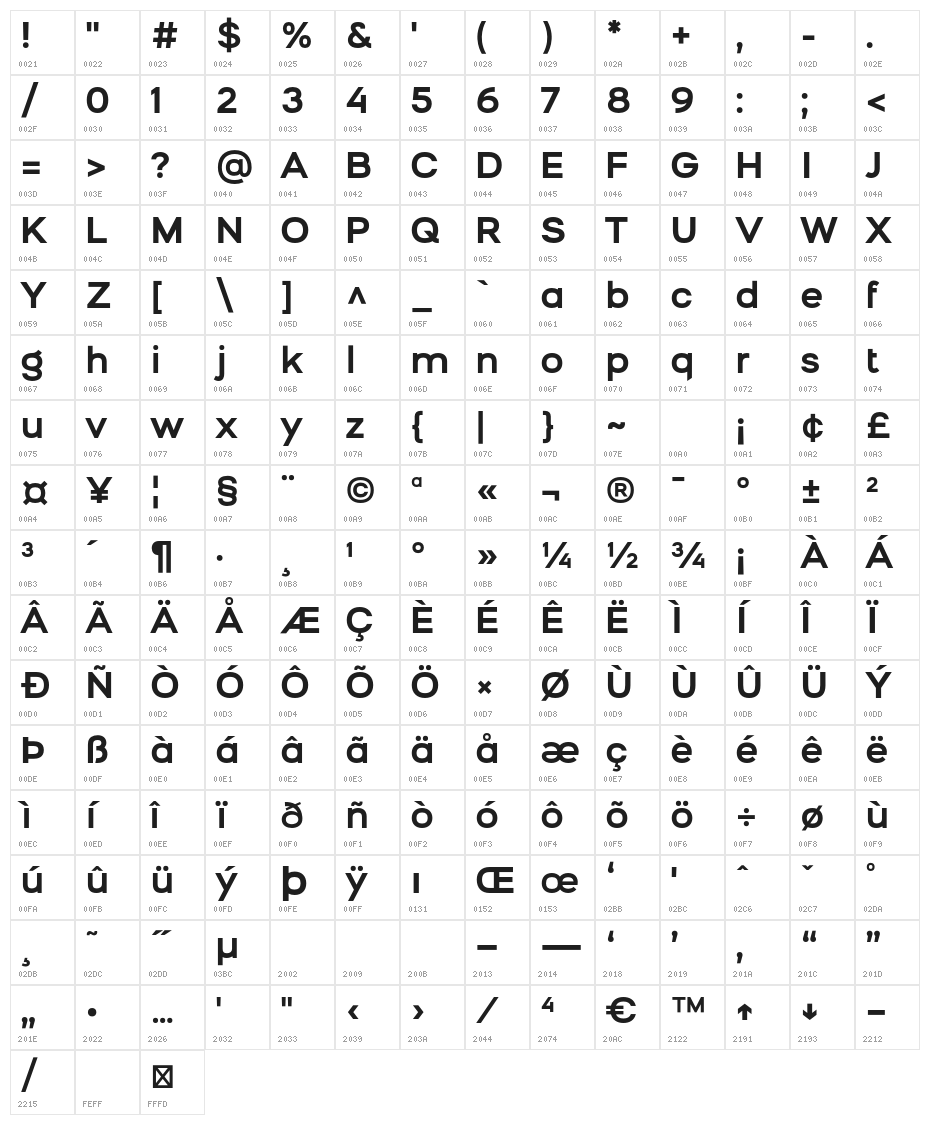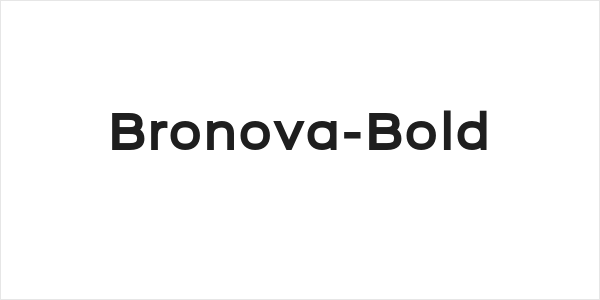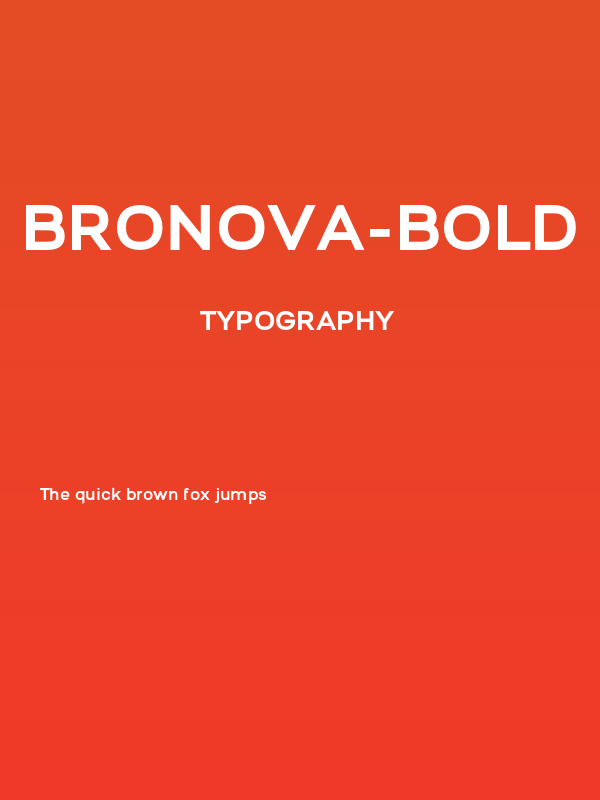
Bronova-Bold Font
Bronova-Bold Description
This font exhibits a clean and modern sans-serif style, characterized by its bold weight and uniform stroke width. The letters are well-proportioned with a geometric influence, providing a sense of stability and clarity. The uppercase and lowercase letters maintain a consistent design, ensuring readability across various sizes. The numerals are clear and distinct, matching the overall boldness of the alphabet. Special characters are well-integrated, offering versatility for different types of content. The font's simplicity and boldness make it suitable for impactful designs.
Bronova Font
| Proposed Projects | Ideal for branding, headlines, posters, and digital media where a strong, modern presence is needed. |